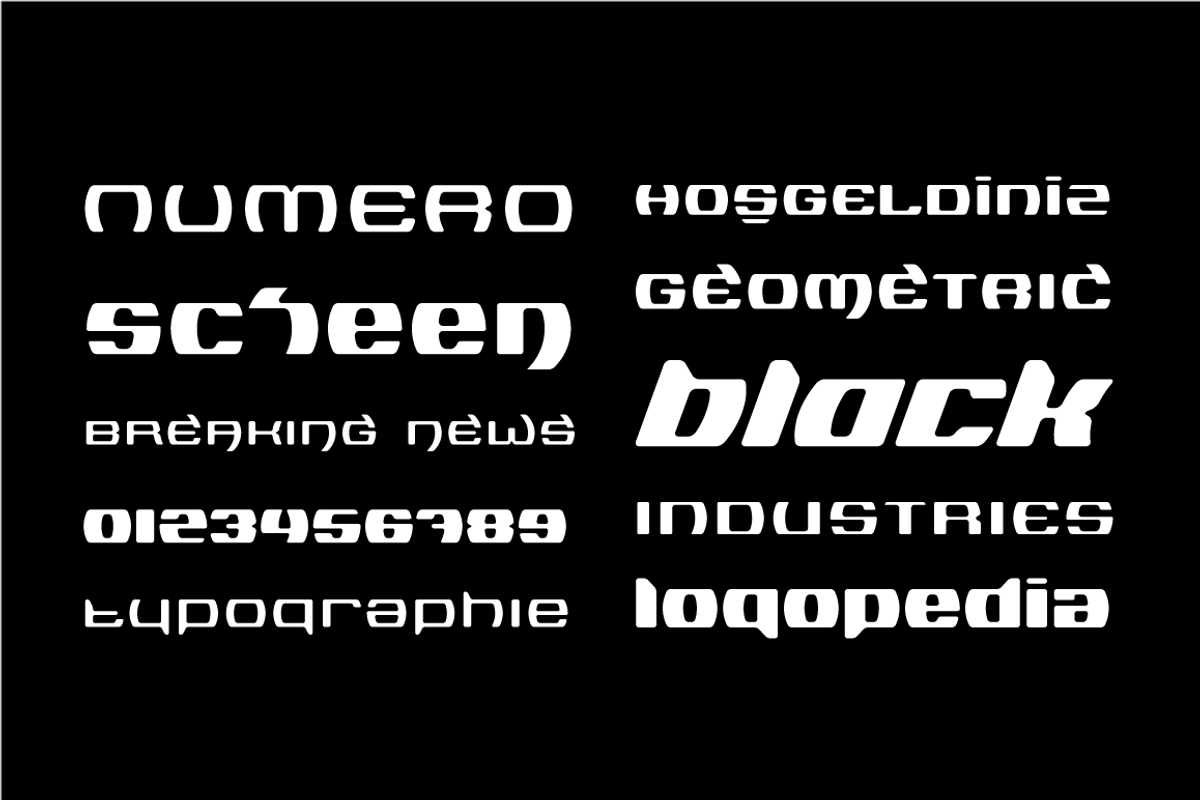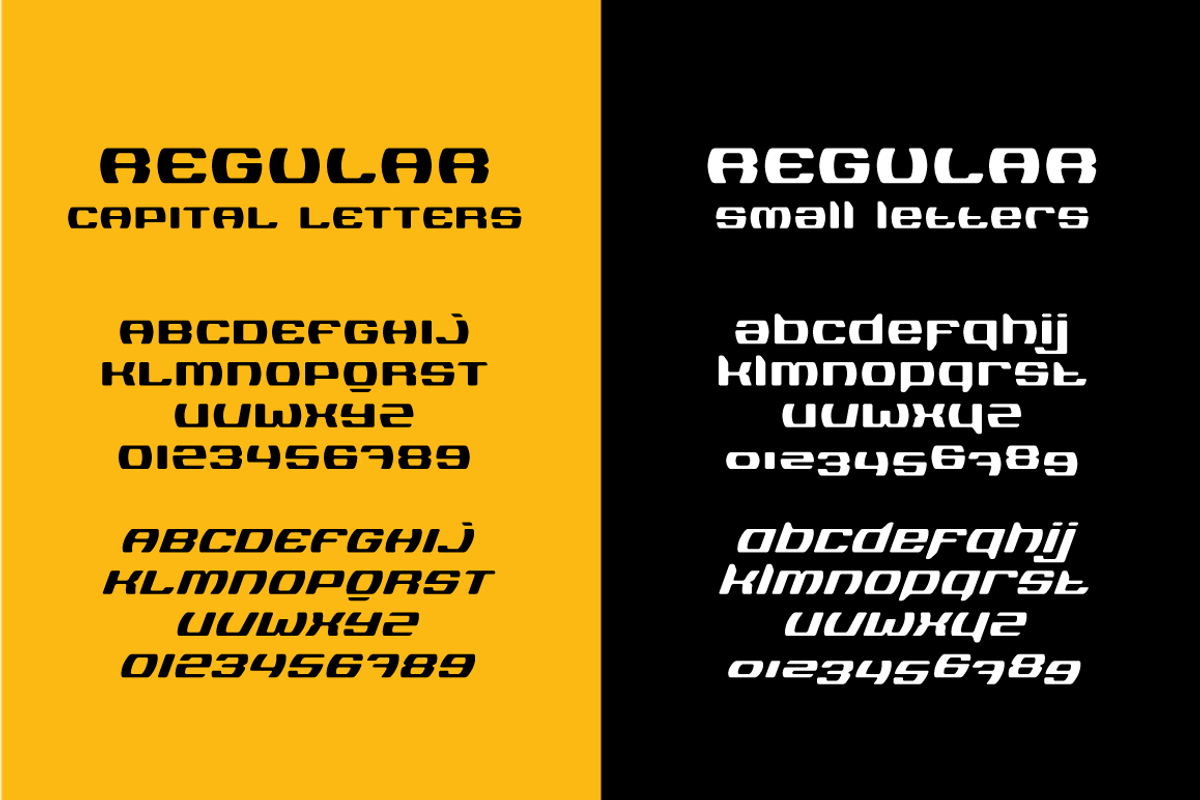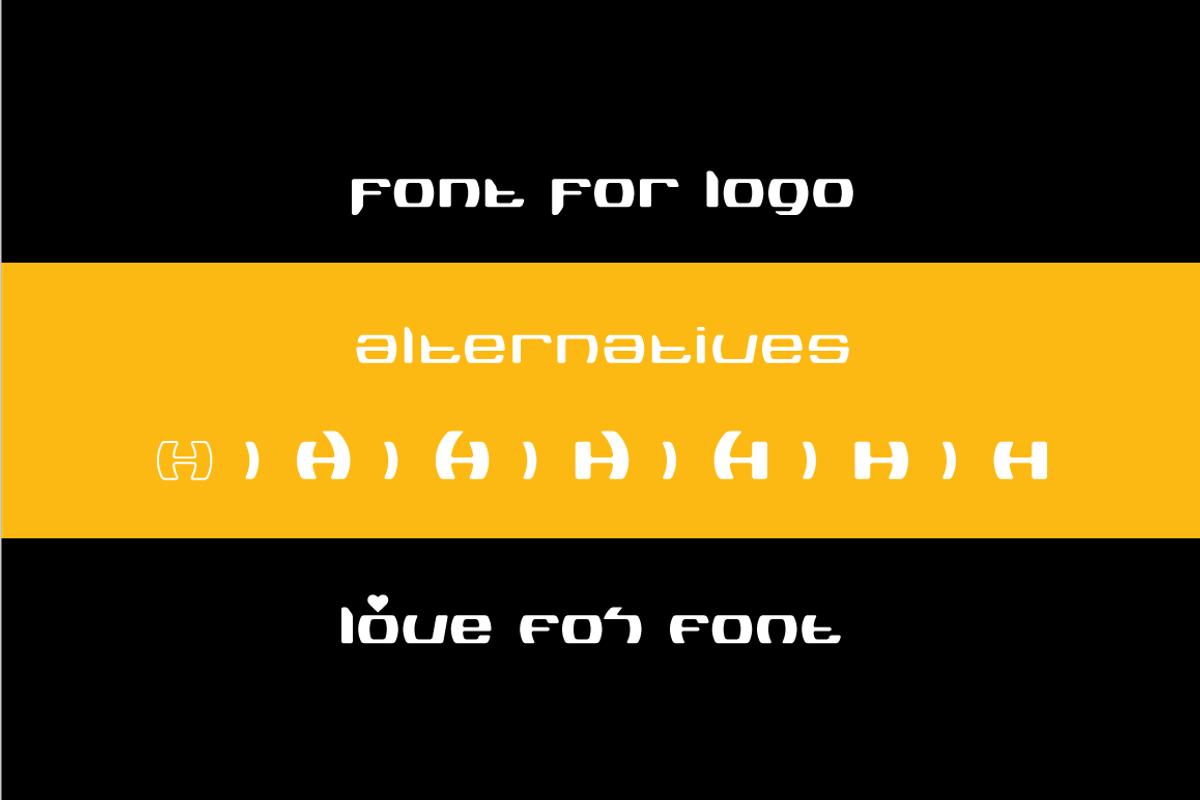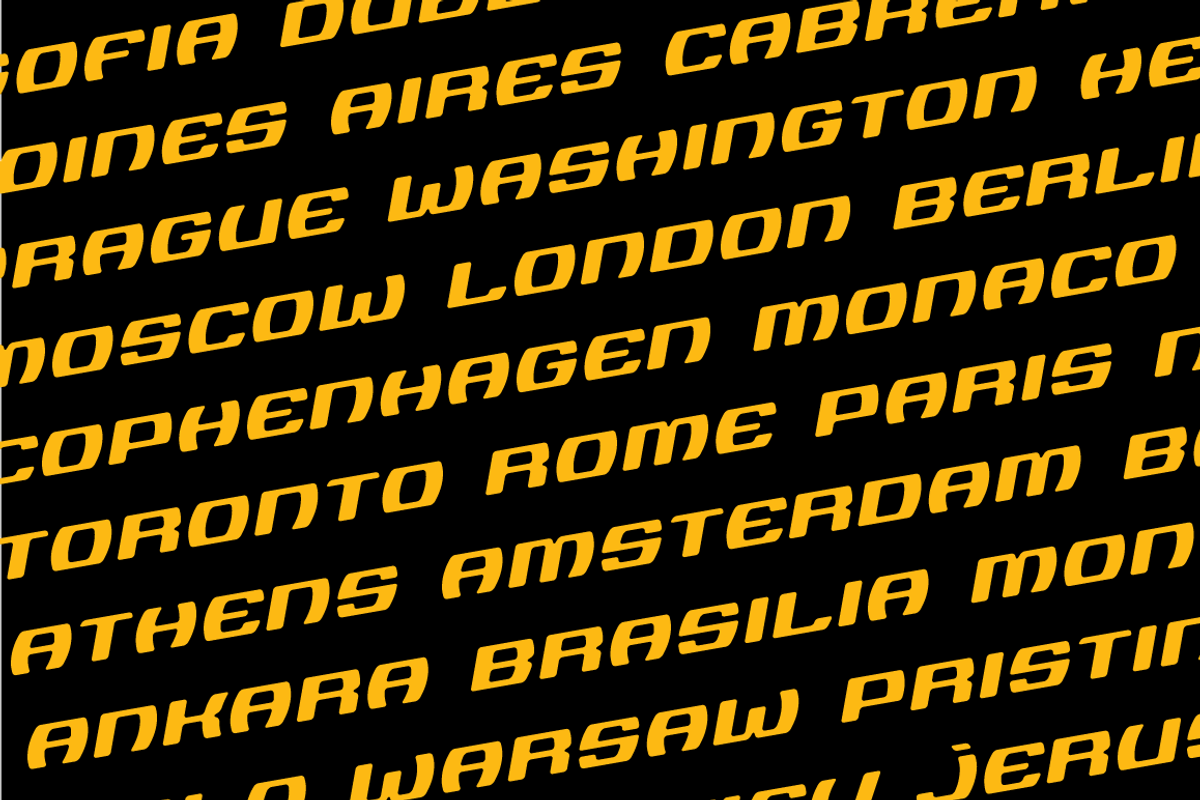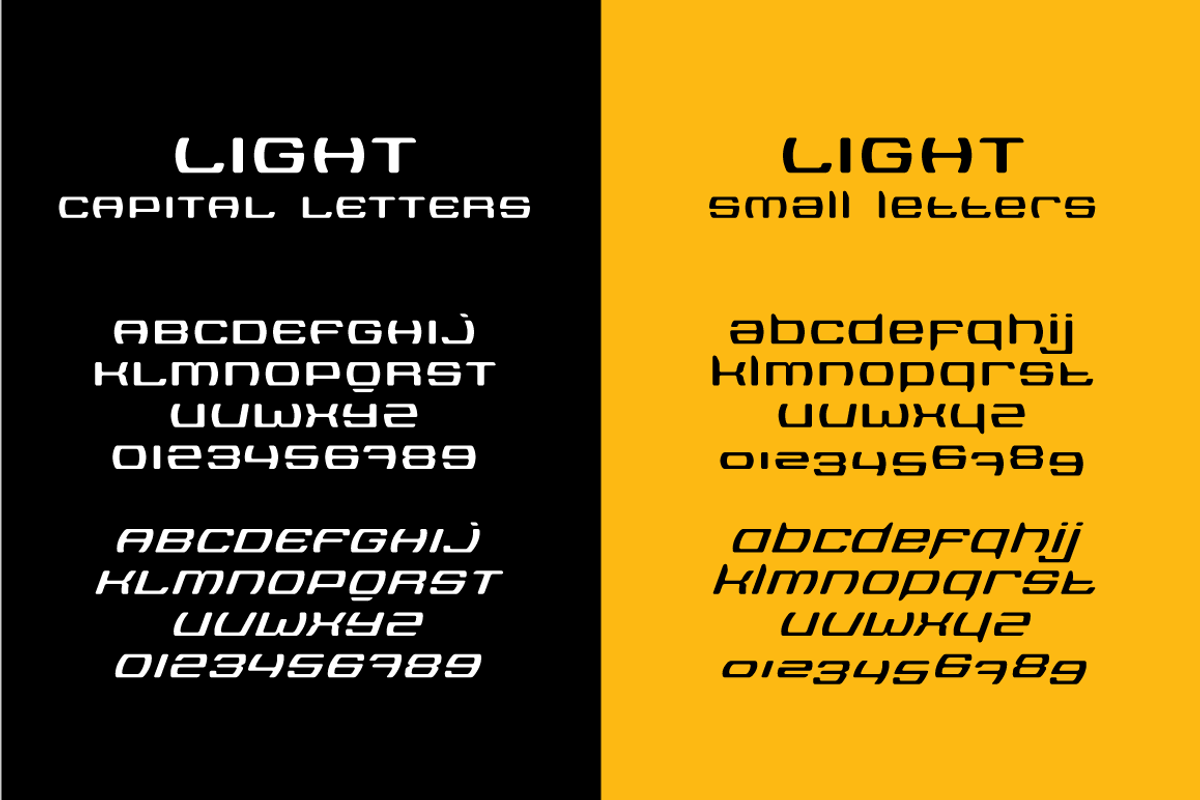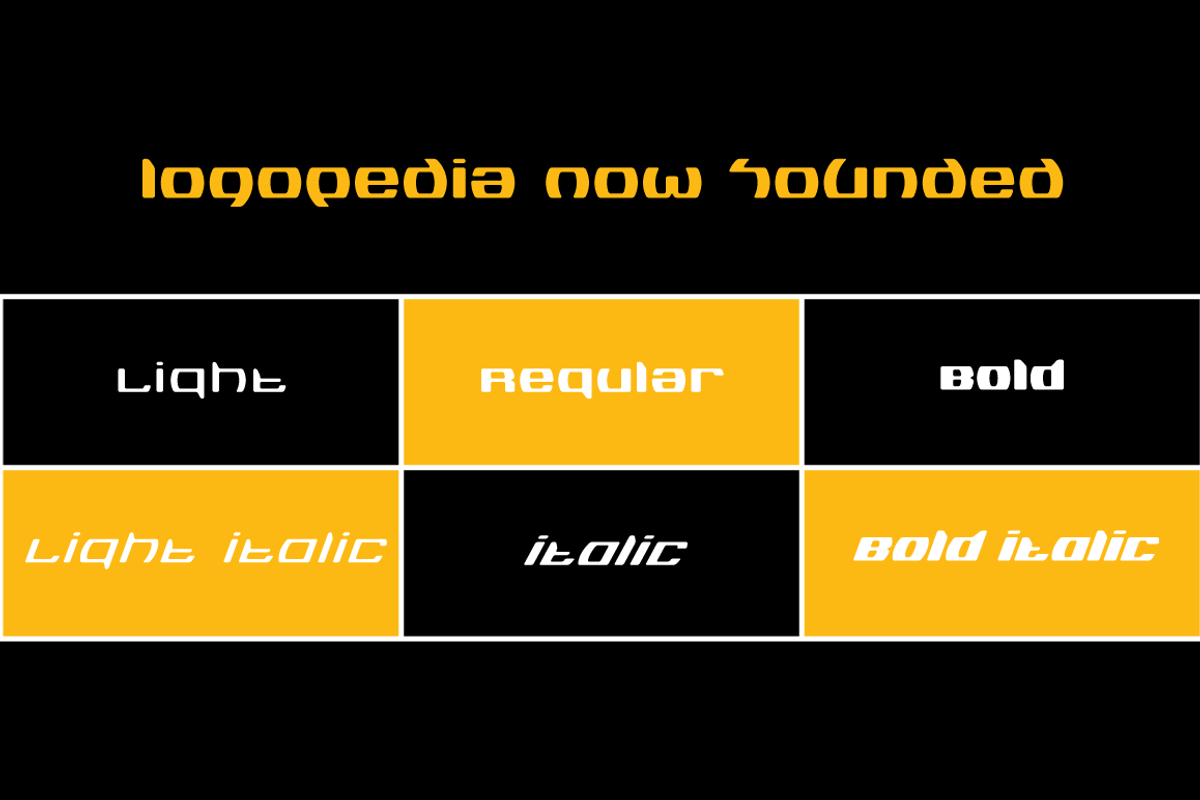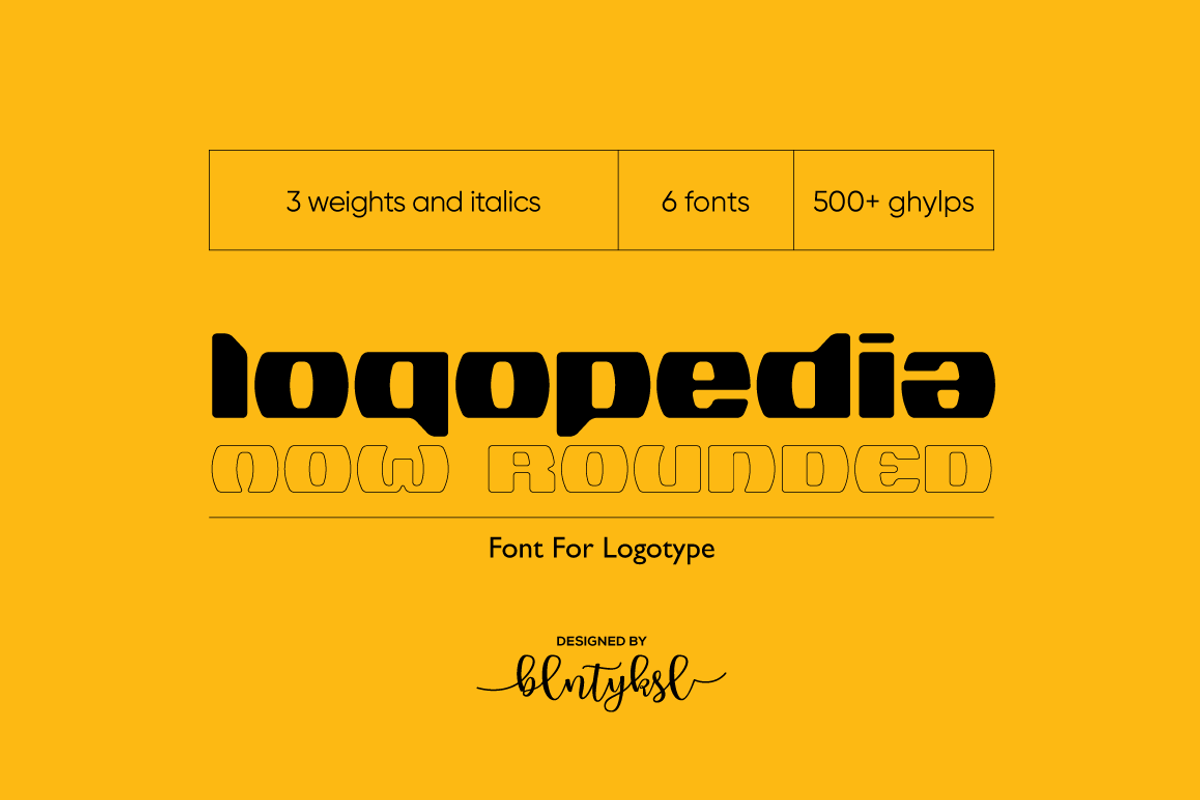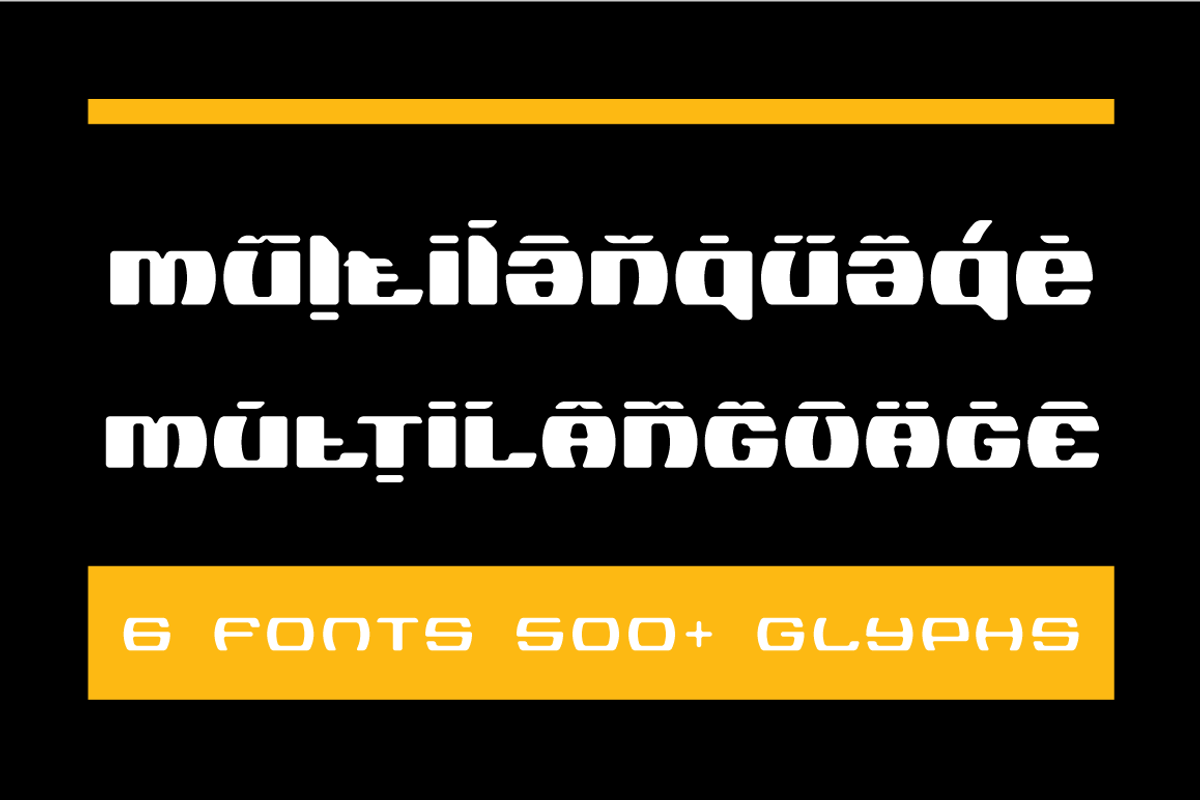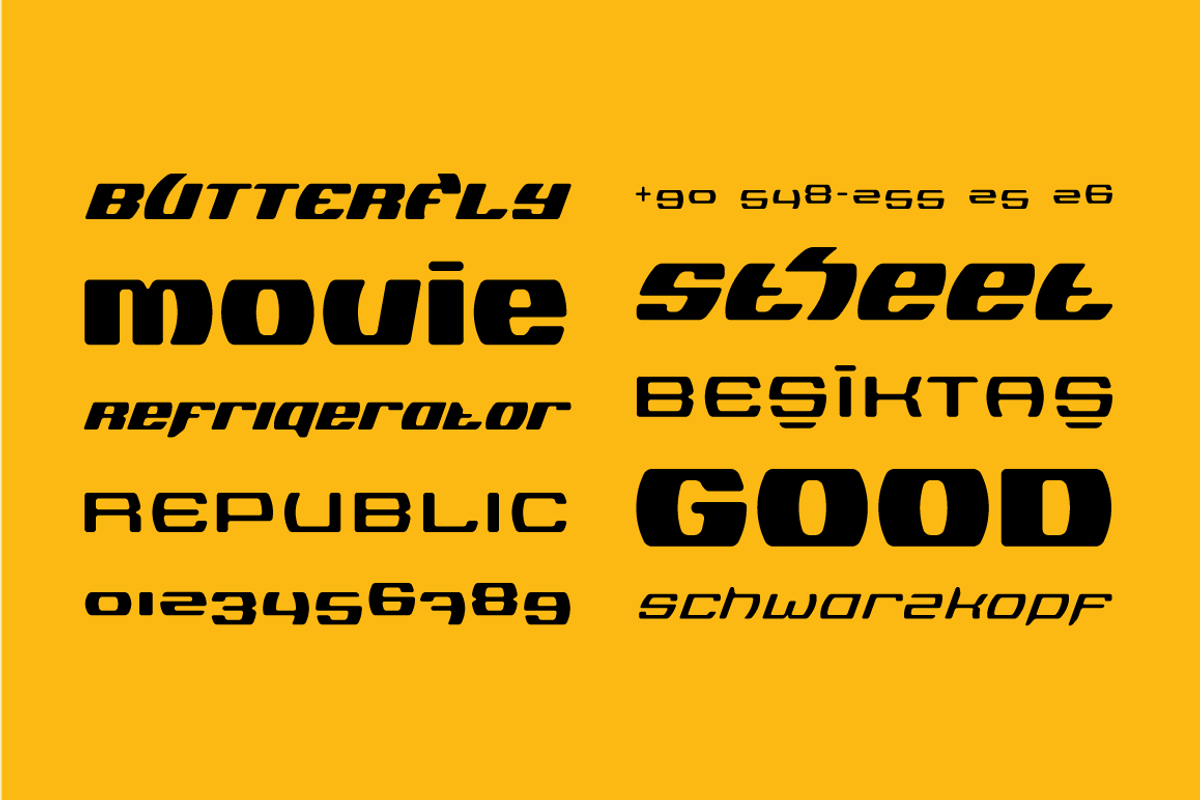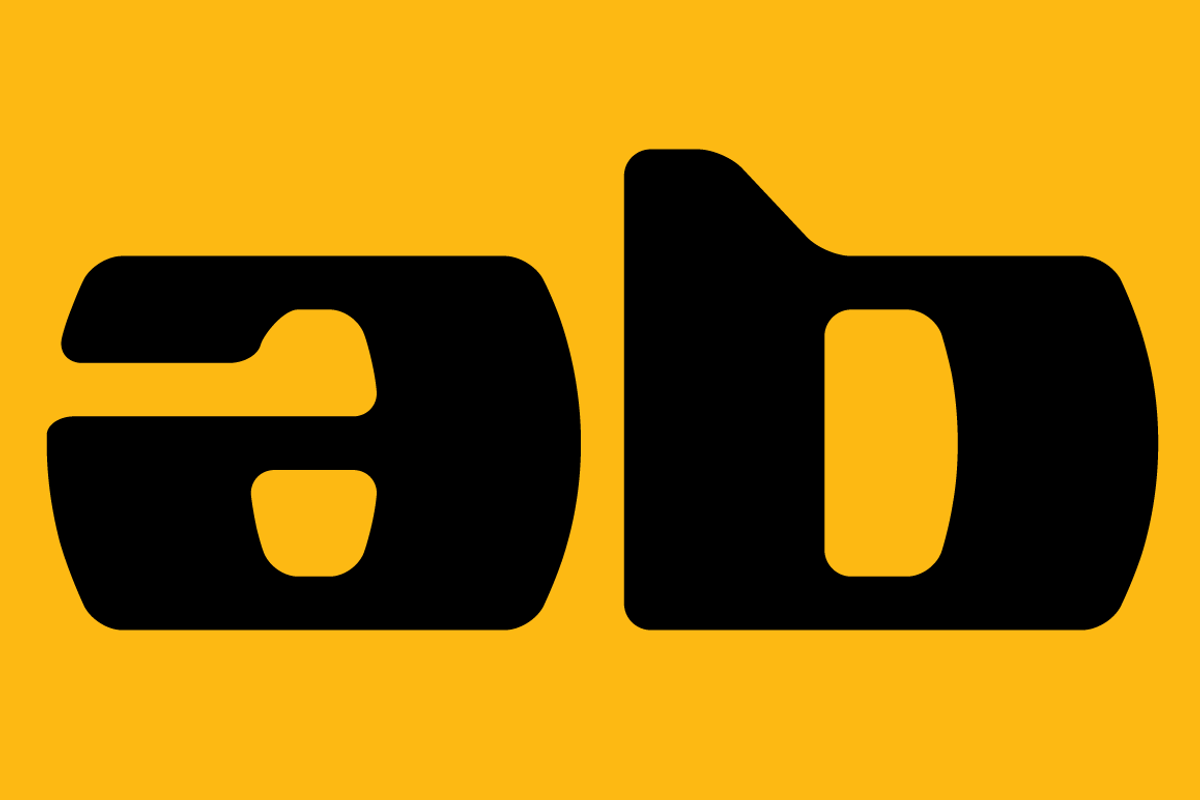
Logopedia Now Rounded
What makes "Logopedia Now Rounded" unique is that it has a strong body, upper and lower case letters are the same size and work in perfect harmony.
All letters in the character have "alternatives" in various numbers. This feature provides you variety in your designs. It is possible to take your designs to the next level by using "Logopedia Now Rounded".
"Logopedia Now Rounded" is ideal for especially logo design, advertising and packaging, branding and creative industries, banners and billboards and signage as well as web and screen design.
"Logopedia Now Rounded" provides advanced typographical support for Latin-based languages. An extended character set, supporting Central, Western and Eastern European languages, rounds up the family.
The designation “Logopedia Now Rounded 500 Regular” forms the central point. "Logopedia Now Rounded" comes 3 weights and italics total 6 types. The family contains a set of 543 glyphs.
Classes and Features, Stilistic Style, Fractions and Old Style Numerator just one touch easy In all graphic programs.
"Logopedia Now Rounded" is the perfect font for web use.